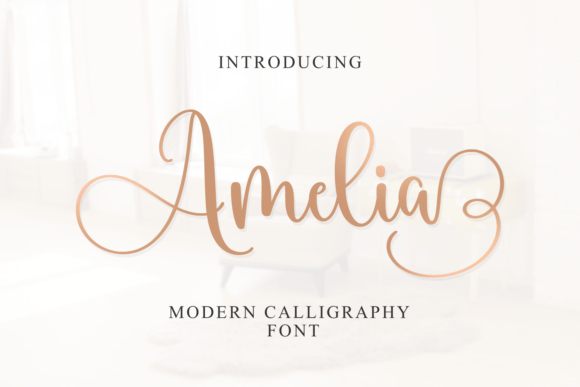
Unleash the allure of words, the eloquence of expression, and the captivating power of visual aesthetics with Amelia Font, an artistic creation meticulously crafted by Kammaqsum. This elegant calligraphy font is not merely a collection of letters; it's an invitation to embark on a creative journey where your words dance with grace and your designs stand out as true masterpieces.
Amelia Font: Where Elegance Meets Originality
Amelia Font is a symphony of carefully drawn characters, each stroke imbued with a sense of artistic flair and timeless beauty. Its curly swashes add a touch of whimsy and charm, transforming ordinary text into enchanting works of art. Whether you're a graphic designer seeking to elevate your branding, a social media enthusiast looking to make your Instagram poetry shine, or a creative entrepreneur seeking a unique font for your website, Amelia Font is your perfect companion.
Capture Hearts with Every Word
With Amelia Font, your words will transcend mere communication; they'll become poignant expressions of your creativity and passion. This font's ability to evoke emotion and captivate readers is unparalleled. Its intricate details and flowing lines add depth and dimension to your designs, leaving a lasting impression on anyone who encounters them.
Effortless Charm for Every Design
Amelia Font seamlessly blends elegance and versatility, effortlessly complementing a wide range of design projects. From logos and labels that exude sophistication to branding materials that radiate creativity, Amelia Font is the perfect choice for businesses seeking to make a statement and leave a lasting impression.
Add a Touch of Magic to Your Digital Presence
In the realm of digital design, Amelia Font reigns supreme. Its enchanting allure brings life to websites, transforming them into captivating online experiences. Whether you're creating eye-catching headers, captivating social media posts, or engaging blog content, Amelia Font will elevate your digital presence to new heights.
Amelia Font: The Key to Unlocking Creative Potential
Amelia Font is more than just a font; it's a gateway to a world of creative possibilities. Its ability to transform ordinary text into captivating works of art is truly remarkable. With Amelia Font as your creative ally, you'll discover a newfound passion for design and a deeper appreciation for the power of words.